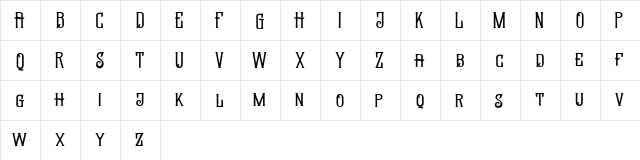
STANFORD FREE Regular
| Foundry | inspiratype |
| Designer | inspiratype |
Design Context for STANFORD FREE Typeface
STANFORD FREE is a composed and adaptable typeface that performs quietly and consistently across a wide range of design contexts.